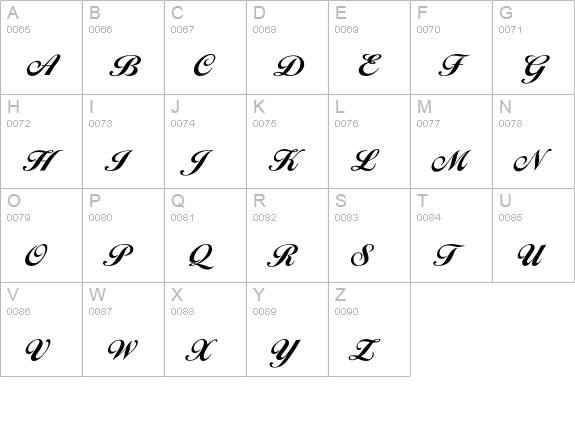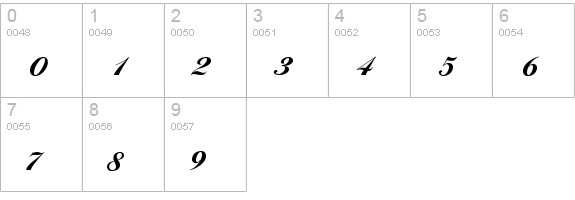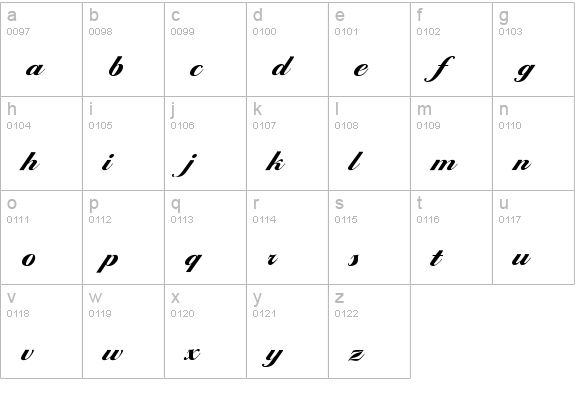
Ballantines-ExtraBold Font Details
Ballantines-ExtraBold is an extra-heavy, attention-grabbing variant in the Ballantines typeface family \xE2\x80\x94 well suited to high-impact headlines, posters, and bold branding.
Ballantines-ExtraBold is a modern and bold font that exudes strength and confidence. With its thick, sturdy letterforms and sharp edges, this font commands attention and makes a powerful statement in any design project. Whether used for headlines, logos, or branding materials, Ballantines-ExtraBold adds a touch of sophistication and impact. One of the best features of Ballantines-ExtraBold is that it is completely free to download at FontsMarket.com. This means that you can easily access this high-quality typeface without any cost, making it a valuable addition to your font library. Don't miss out on the opportunity to enhance your designs with the striking presence of Ballantines-ExtraBold – download it for free today!